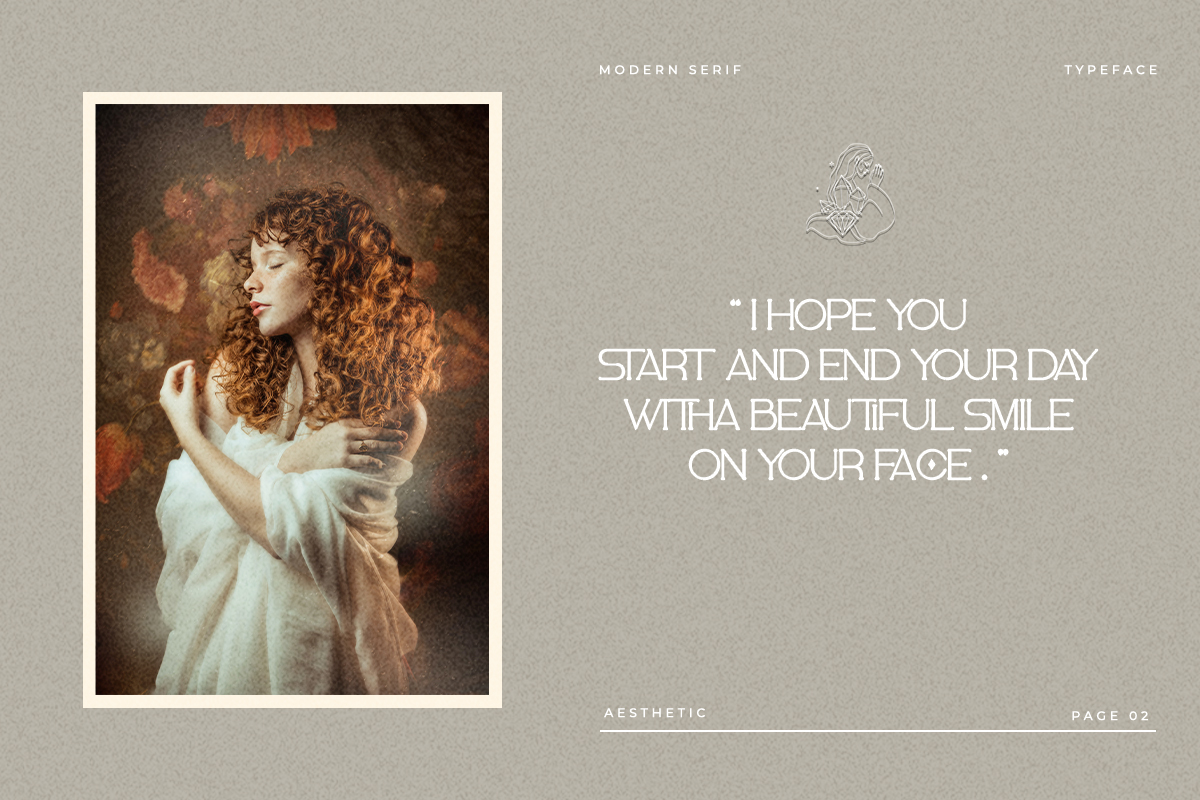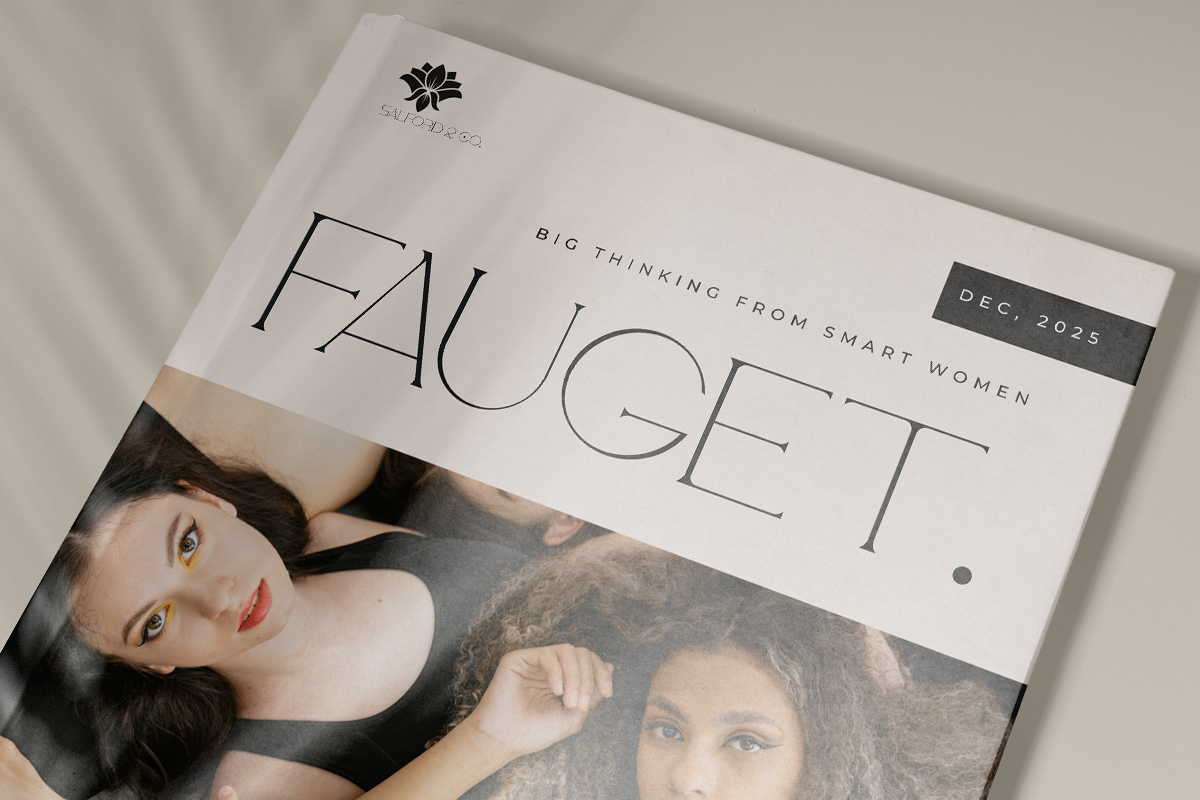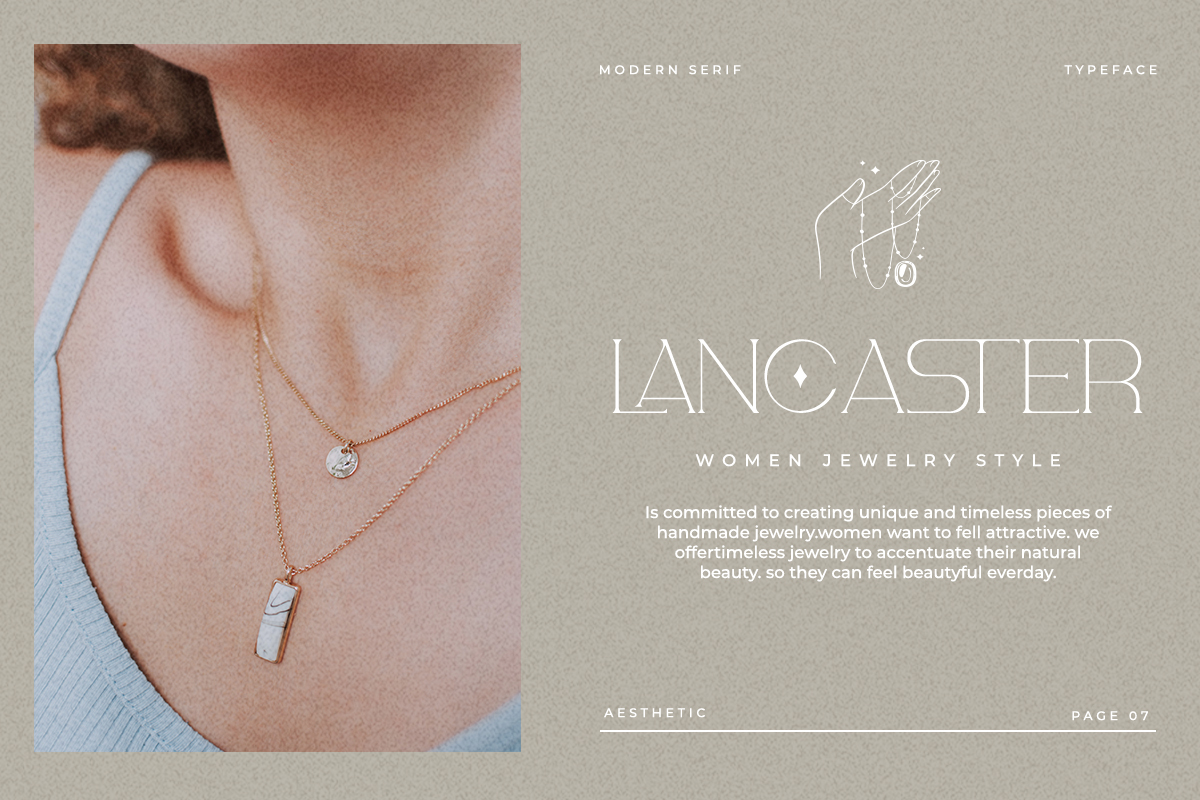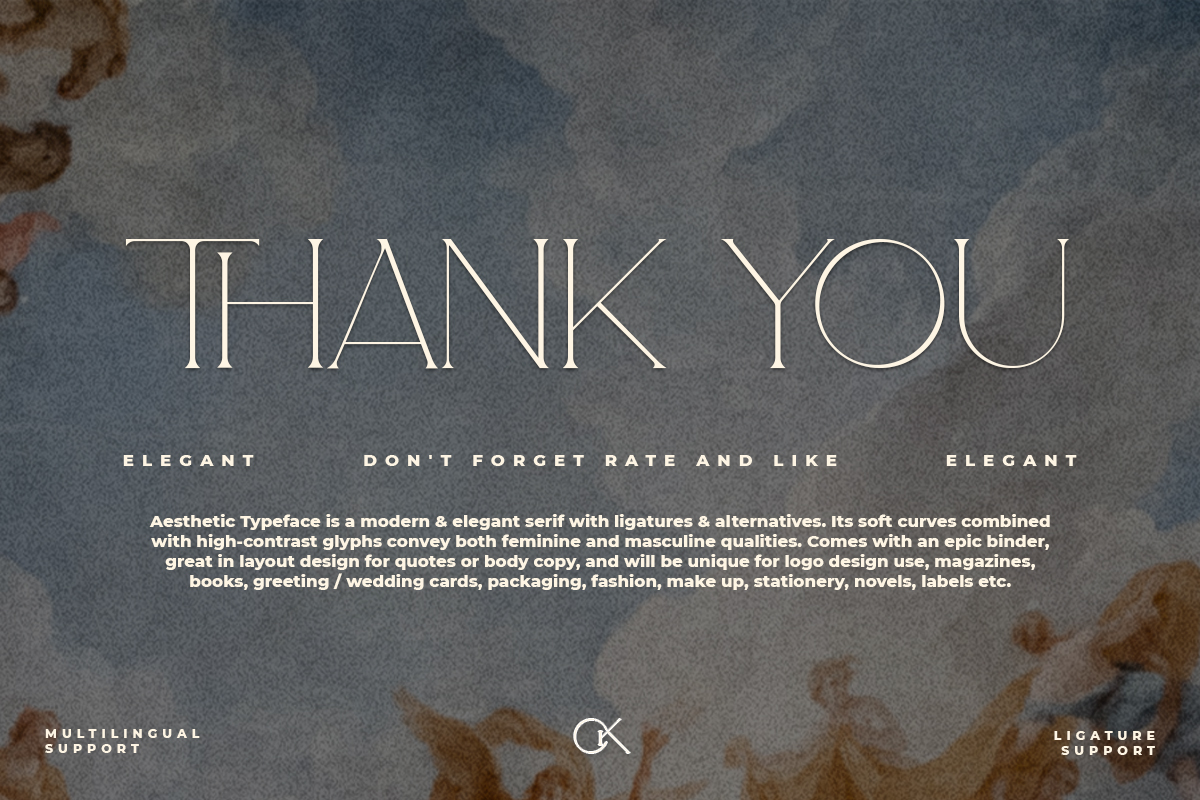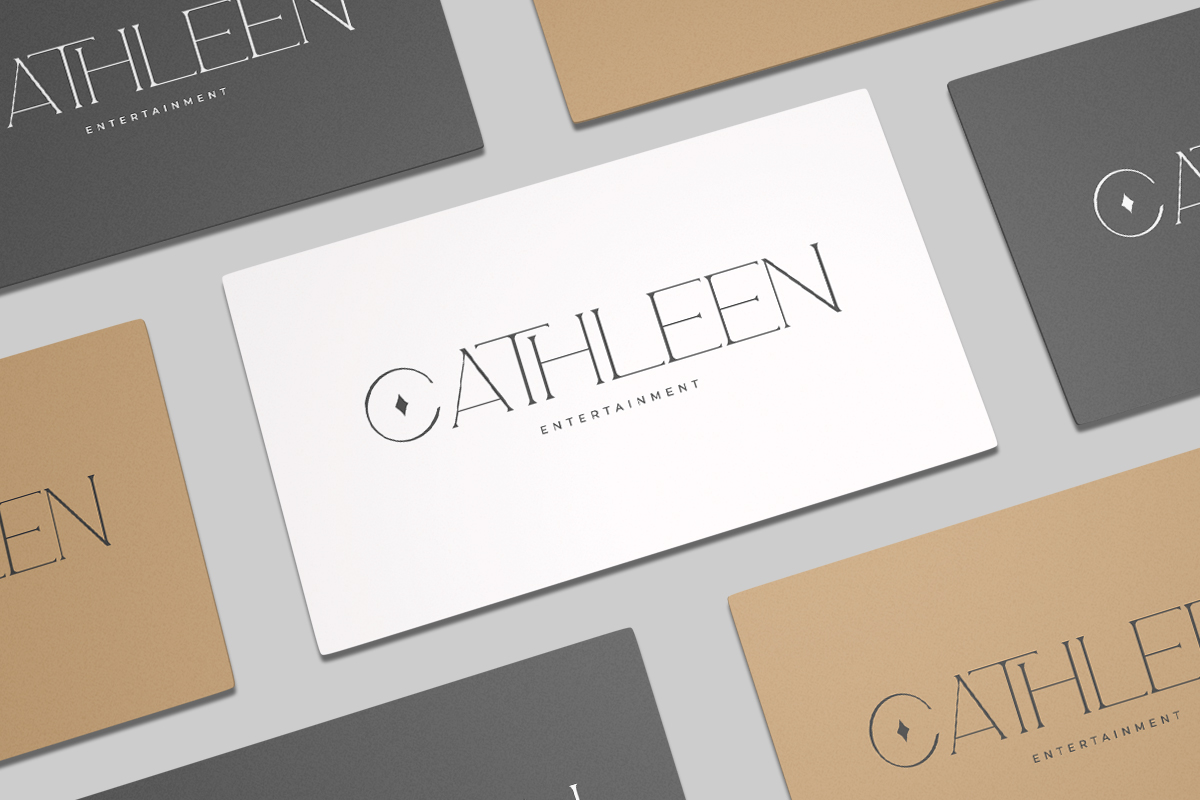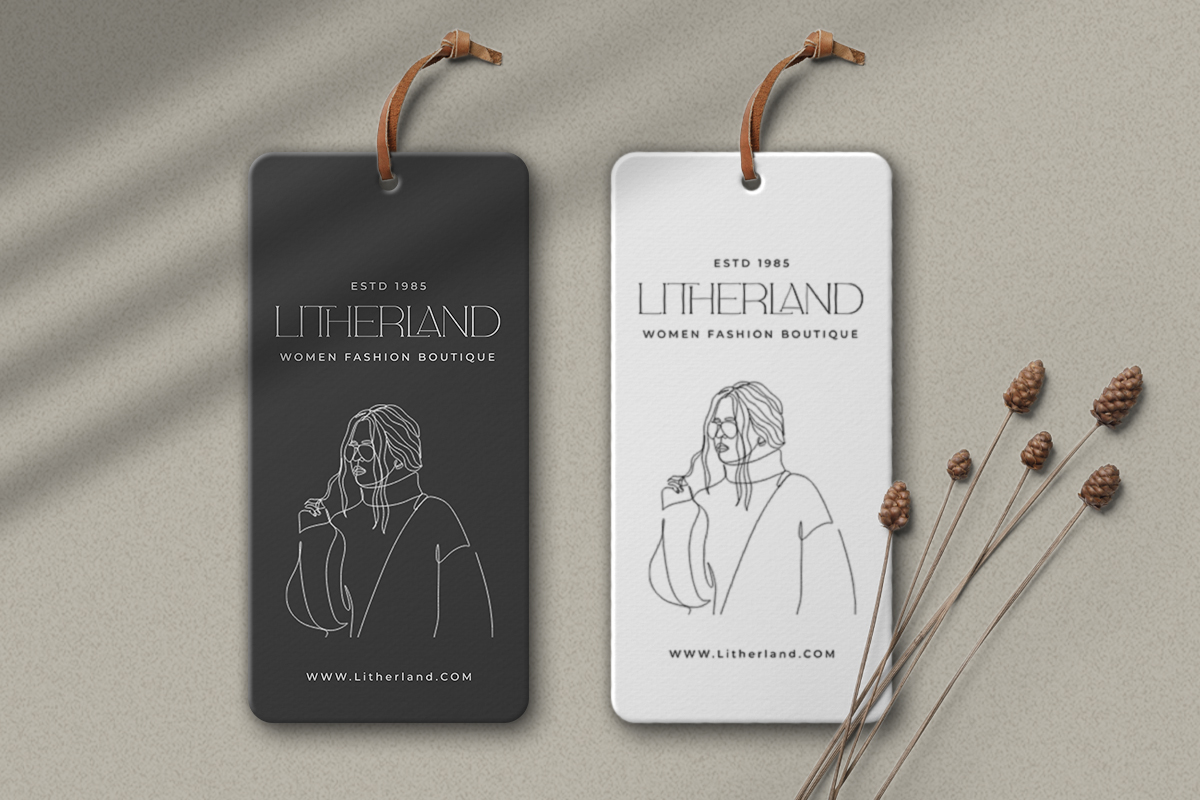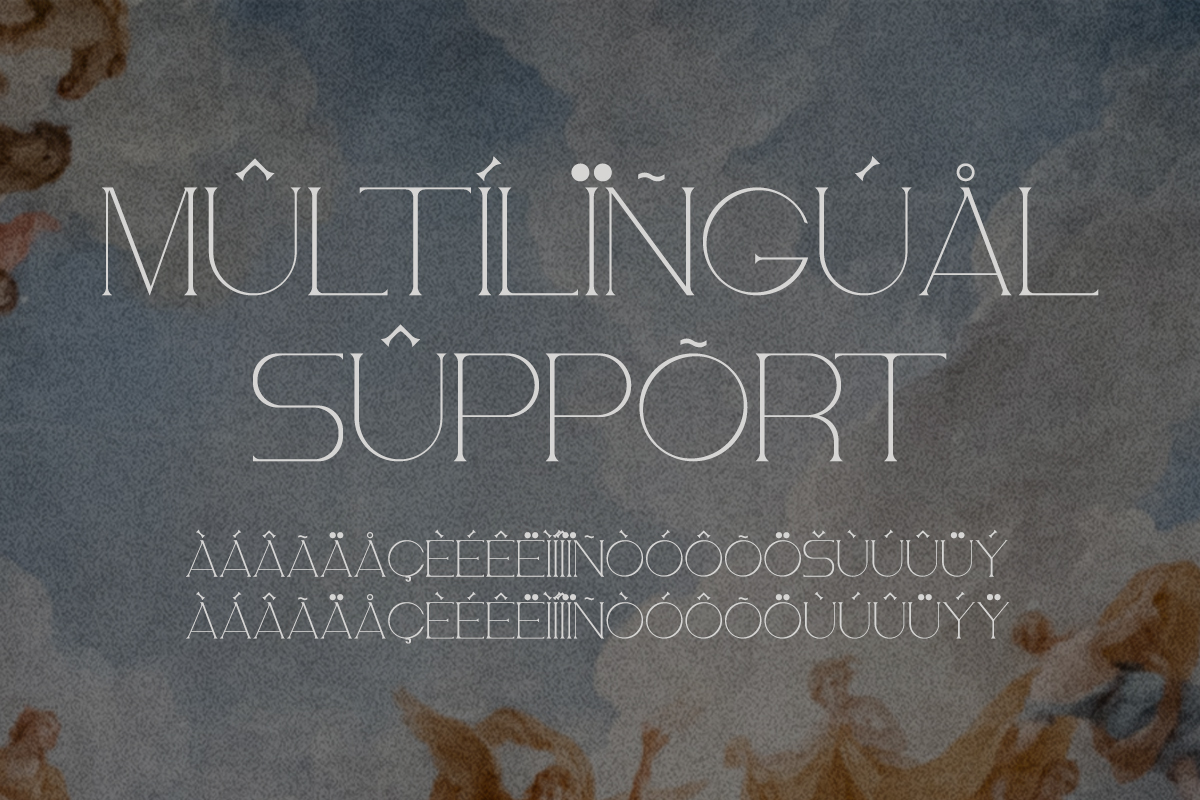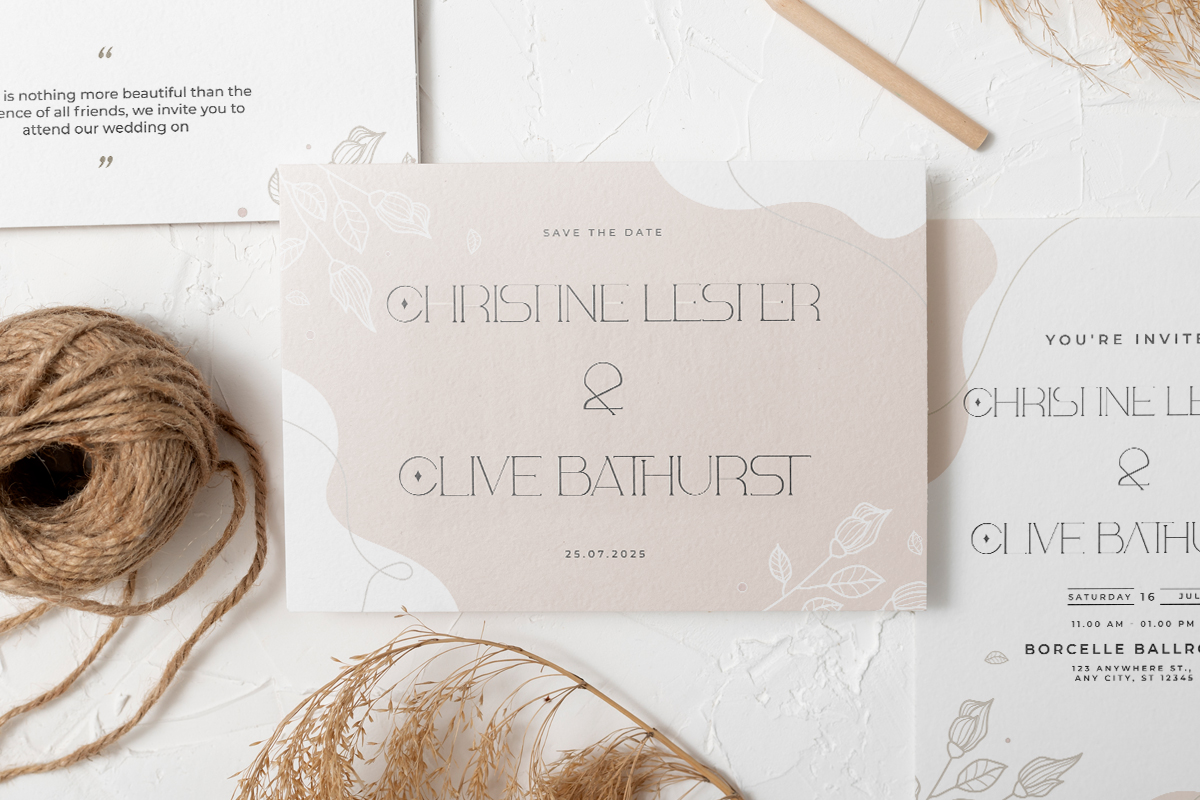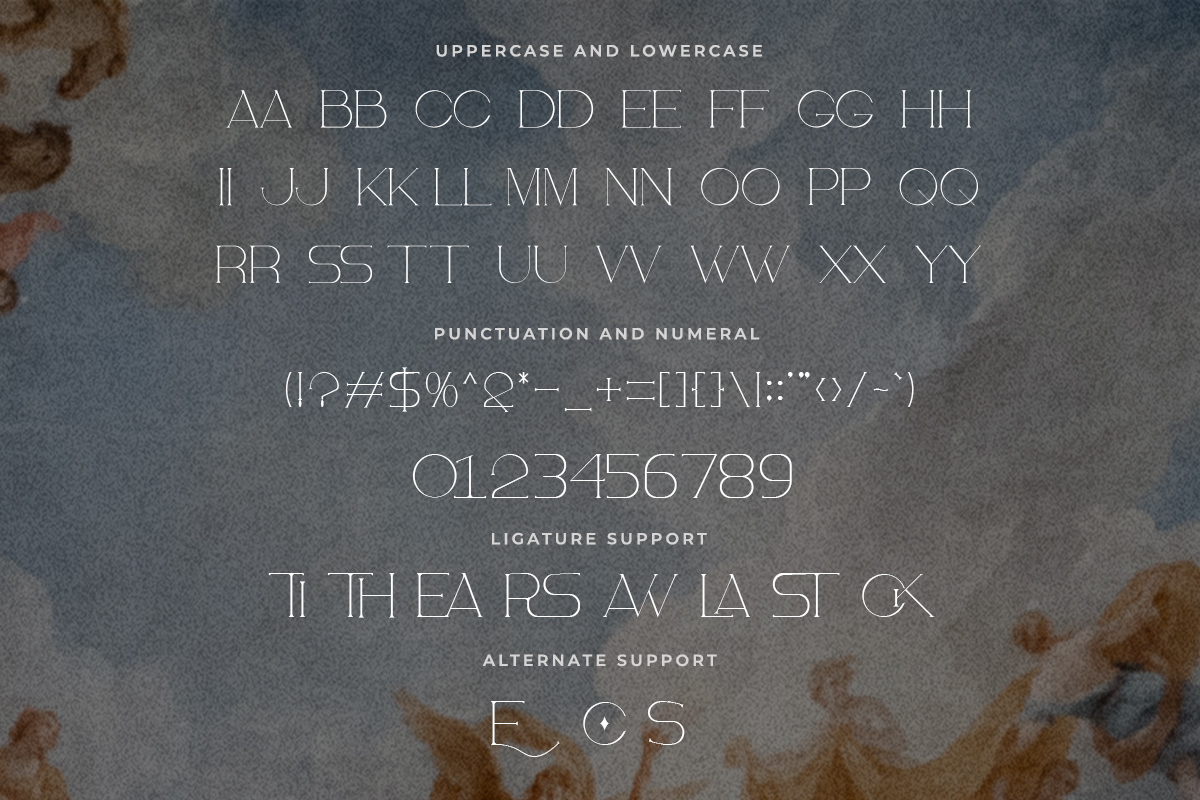
Aesthetic Modern Serif Font provides a new look different from the general serif fonts. The characteristics of a serif font with additional lines in some parts of the letters are still visible, but the lines look very small. Aesthetic font has a long and thin letter shape. The font belongs to modern fonts and elegant fonts. Its simple style looks charming to the eye. It can be used as a digital font as well as a print font. Aesthetic Modern Serif Font has many matches when combined with the product to be used. This typeface is the best font applied to fashion magazine covers, books, greeting/wedding cards, packaging, and novels. Aesthetic fonts are also great for use as product labels, such as fashion and makeup. There is no need to add excessive pictures and ornaments because the Aesthetic font has presented its own identity where a simple yet elegant impression radiates. Aesthetic font is a typeface for a movie poster font in a cinema or a show in a building. Aesthetic font is an aesthetic font that can be used as an Instagram font which can later be used when making Instagram stories. Business cards can use this font because even though the aesthetic font is a serif typeface, each letter looked clear and distinguished. In other words, this font is legible. Apart from that, the Aesthetic font is one of the best fonts that can be used as a logo. Our Serif fonts collection is compatible for use as Figma fonts, Canva fonts, Freepik Fonts, and Adobe Fonts. They also work as Windows Fonts, and Apple Fonts. For your social media needs, you can use and install fonts in our Serif font collection to use as Instagram Fonts, Facebook Fonts, and Twitter Fonts.